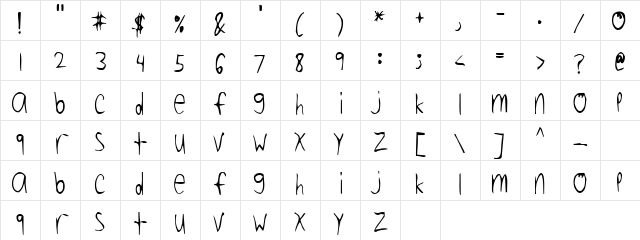
Four Decibels and Falling Regular
Design Context for Four Decibels and Falling
Four Decibels and Falling is a composed and adaptable typeface that performs quietly and consistently across a wide range of design contexts.